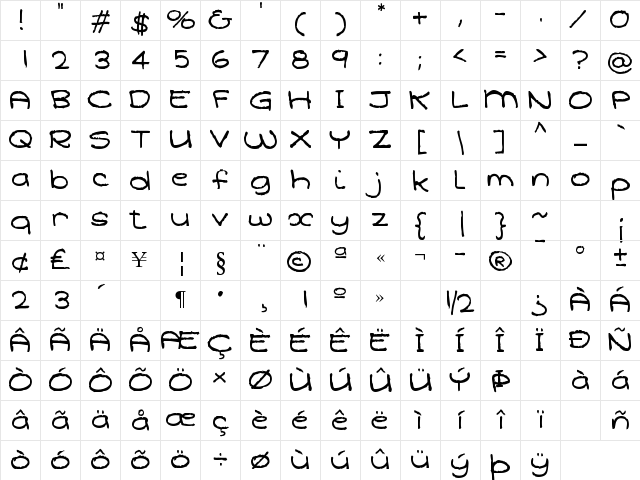
Complete Qarolina Regular glyph index. Displaying only characters natively supported by Qarolina Regular font.
Qarolina is a composed and adaptable typeface that performs quietly and consistently across a wide range of design contexts.